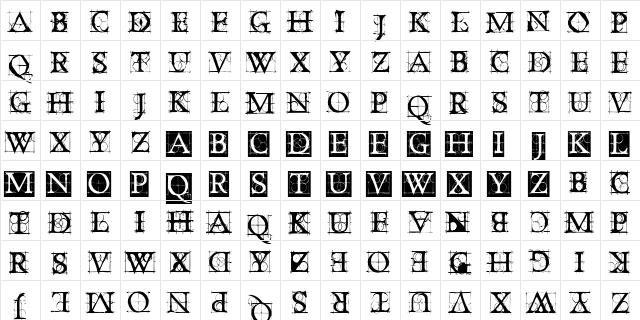
OldConstructedCaps Regular
OldConstructedCaps is a composed and adaptable typeface that performs quietly and consistently across a wide range of design contexts.